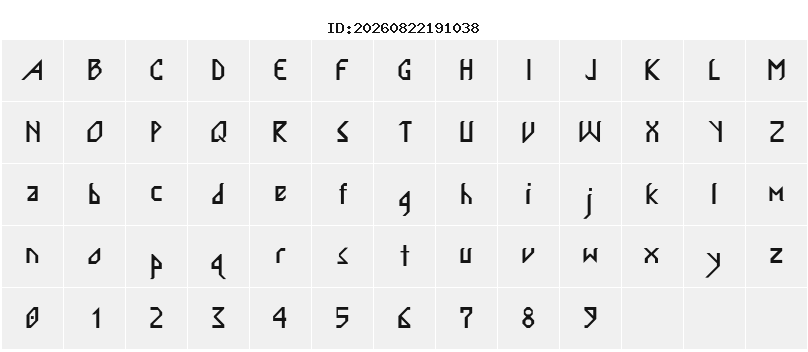
Scandi Preview
• Font Name: Scandi
• Full Font Name: Scandi
• PostScript Name: Scandi
About Scandi.ttf
Scandi.ttf is a modern, elegant sans-serif font designed for ultimate readability and visual harmony. Perfect for branding, headlines, web design, and print materials.